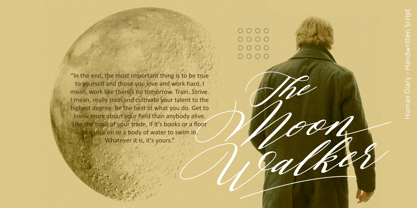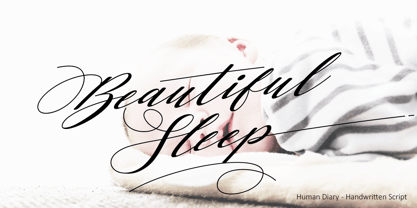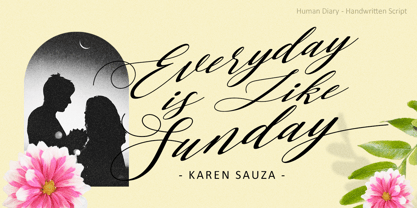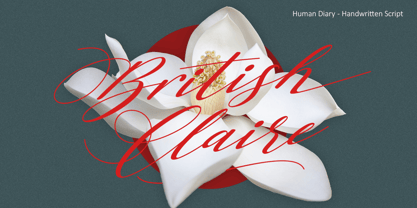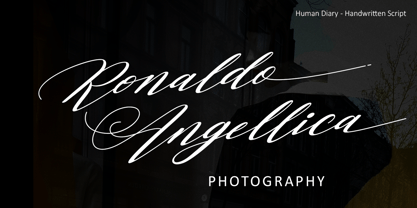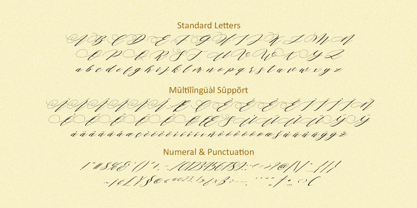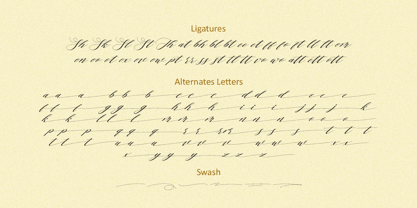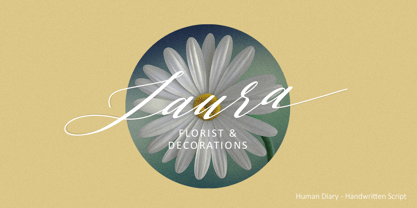
Human Diary
by HIRO.std
The Human Diary Font Family was designed by Chairul Ashar and published by HIRO.std. Human Diary contains 1 styles.
Human Diary is a handwritten script font.
This font describes about casual, luxury, elegant, stylish, dynamic, easy to use and will bring a good harmony when the letters are connected and paired each other.
FEATURES
- Uppercase and Lowercase letters
- Support Opentype Features
- 34 Ligatures
- Alternate Lowercase
- Swash
- Numbering and Punctuations
- PUA Encoded Characters
- Multilingual Support
USE
Human Diary works great in any wedding invitations, branding, logotype, magazine, photography, and any projects that need elegant script taste.
Designers: Chairul Ashar